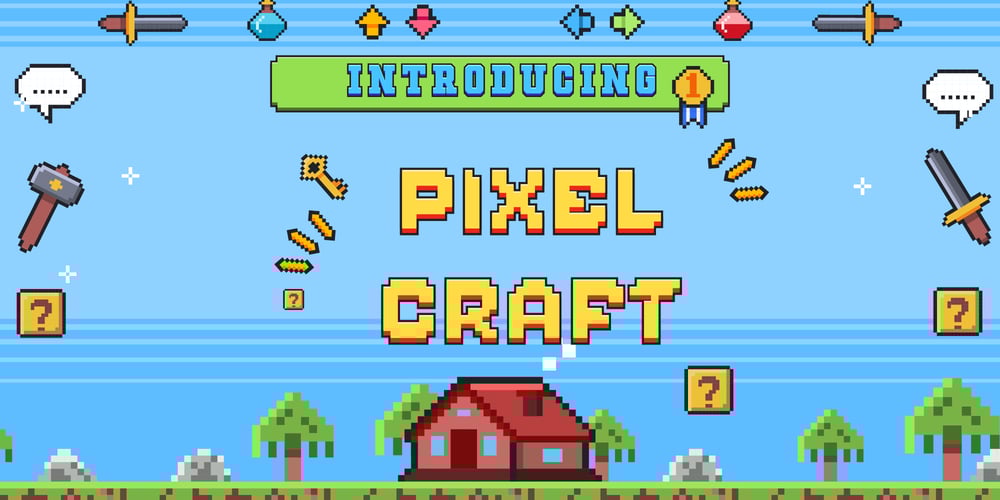
Pixelcraft Font Family was designed by Muhammad Afif Ersya and published by Mevstory Studio. Pixelcraft contains 1 styles and family package options. Pixelcraft is a retro pixel font style, perfect for retro game design theme, Also suitable for movie, documenter, film, logo, poster, game, book cover, headlines, title and many more projects. Add this font to your creative ideas and notice how it will make them stand out!